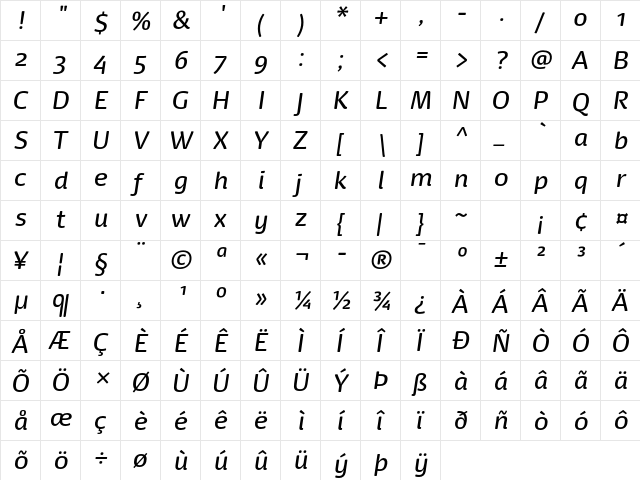
Dancer Pro Book Italic
| Foundry | Morten Rostgaard Olsen |
| Designer | Morten Rostgaard Olsen |
Design Context for Dancer Pro Typeface
Dancer Pro offers clean, dependable letterforms without strong stylistic allegiance, making it a practical choice for designers who need flexibility. Its italic angle brings a sense of urgency and motion to the letterforms.
Pro Tip: Use Dancer Pro for emphasis, pull quotes, and subheadings where its slanted energy can add rhythm to the layout.